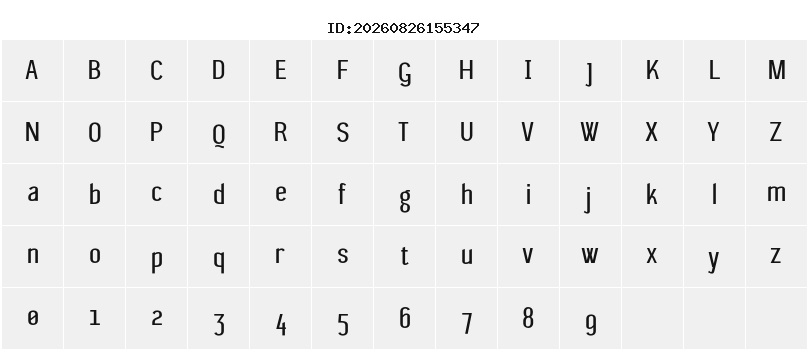
• Font Name: Wagashi Sans
• Font Style: Обычный
• Full Font Name: Wagashi Sans Regular
About Wagashi Sans.otf
Wagashi Sans.otf is a modern, elegant sans-serif font designed for ultimate readability and visual harmony. Perfect for branding, headlines, web design, and print materials.